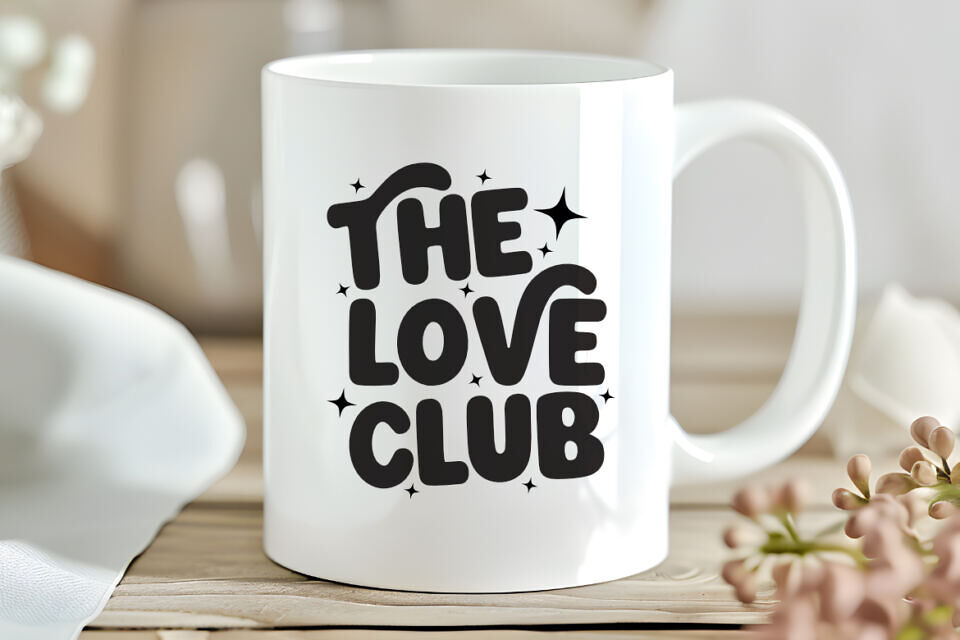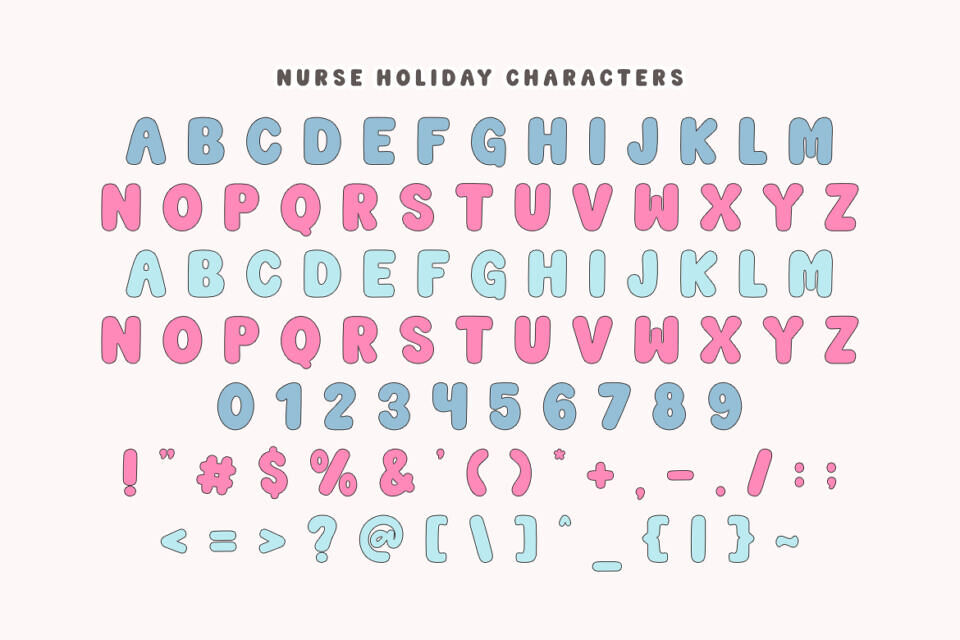
Nurse Holiday is a bubbly, cheerful, and groovy display font inspired by the playful, candy-colored aesthetics of a retro Christmas, specifically tailored for celebrating our healthcare heroes during the festive season. Its smooth, rounded forms and thick lines give it an incredibly friendly and impactful presence.
Great for holiday themes such as Christmas, Nurse Appreciation Week, New Year’s, and any Seasonal Celebration where you want to combine festive cheer with recognition for nurses and healthcare workers!